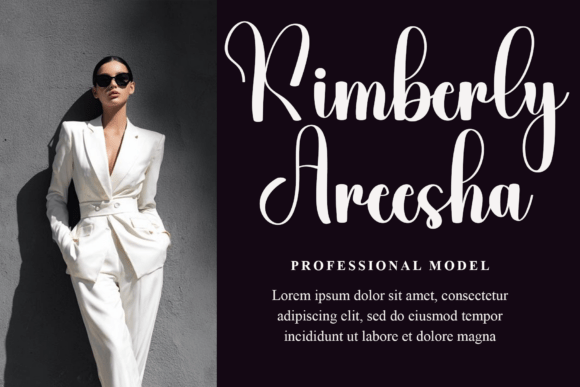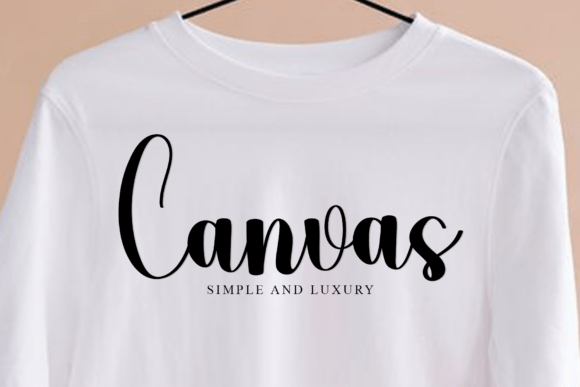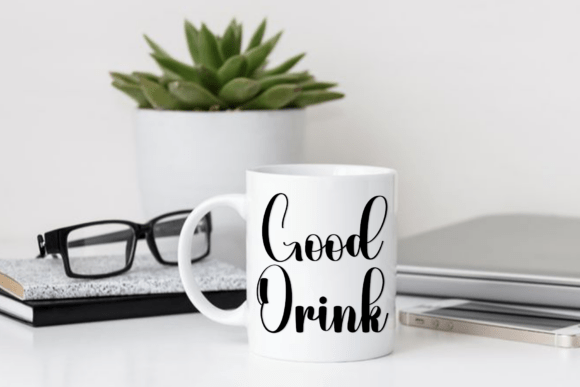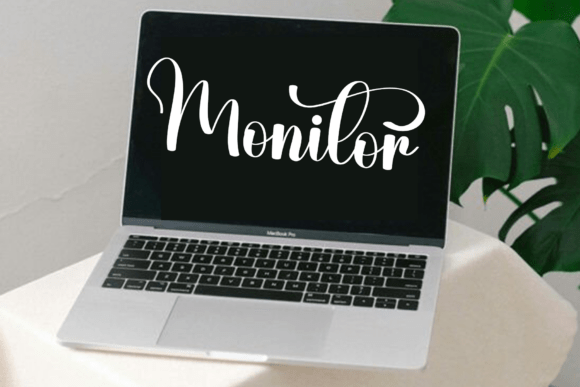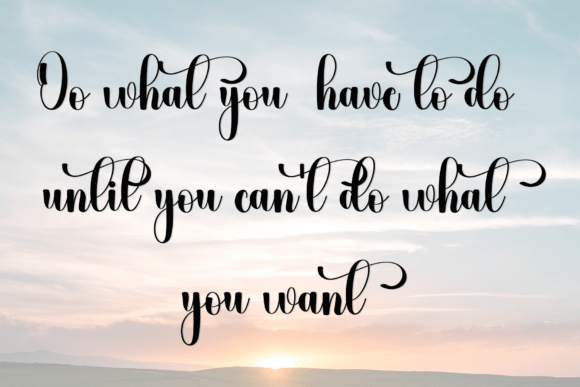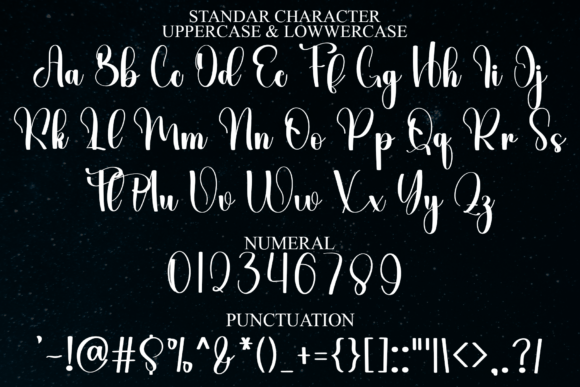
Fairyland Dreams Font: Where Typography Meets Whimsy
As the holiday season approaches, many designers find themselves brainstorming ideas for festive and merry projects. Perhaps you’re working on a new line of greeting cards or gift tags, and you want to add a touch of magic to your designs. That’s where the Fairyland Dreams Font comes in – a typeface that captures the essence of the holiday season with its decorative elements and whimsical flair.
This enchanting font is perfect for designers who want to bring a cheerful and nostalgic ambiance to their words. With its PUA encoding, you can easily access all of the amazing glyphs and ligatures, making it a valuable addition to any designer’s toolkit. Whether you’re creating holiday-themed projects or simply want to add a touch of whimsy to your designs, the Fairyland Dreams Font is sure to bring your typography to life.
Fairyland Dreams Font Key Features
- Unique Characteristics: Fairyland Dreams Font features a whimsical, dreamlike quality, with intricate details and ornate flourishes, making it perfect for fantasy, fairy tale, and children’s book designs.
Fairyland Dreams Font Review
Fairyland Dreams Font is a whimsical, dreamy font that will transport your audience to a world of fantasy. ✨ The flowing curves and delicate lines evoke a sense of magic and wonder, making it perfect for titles, headings, and any text that needs to stand out.
Here are some of the things I love about Fairyland Dreams Font:
- ✨ Unique and creative design that adds a touch of personality to any project
- ✨ Perfect for fantasy, fairy tales, and children’s book illustrations
- ✨ Highly legible and easy to read, even at smaller font sizes
- ⚠️ May not be suitable for corporate or professional branding due to its whimsical nature
- ⚠️ Can be difficult to pair with other fonts, as its unique style may clash with more traditional designs
- ⚠️ Limited character set and language support, which may be a concern for multilingual projects
Overall, Fairyland Dreams Font is a beautiful and creative choice for projects that require a touch of magic and wonder. While it may have some limitations, its unique design and high legibility make it a great addition to any designer’s toolkit.
Tips for Getting the Most Out of Fairyland Dreams Font
Use Fairyland Dreams Font for:
- Creative titles and headings.
- Whimsical and magical themes.
- Children’s book illustrations and designs.
Experiment with different font sizes and styles to create a unique and eye-catching effect.